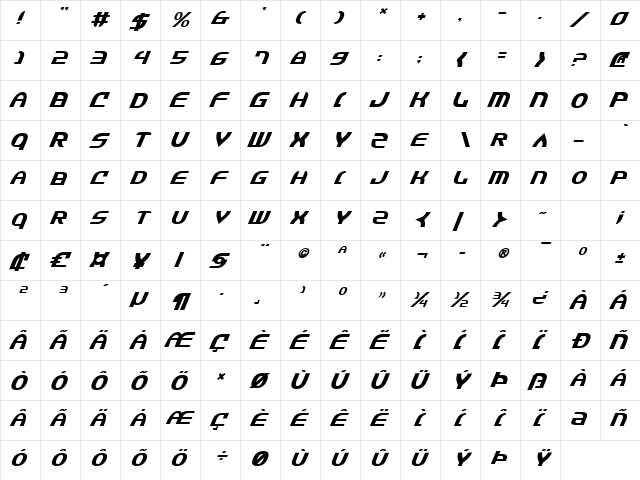
Jannisary Sword Italic Italic
Design Context for Jannisary Sword Italic Typeface
Jannisary Sword Italic is a composed and adaptable typeface that performs quietly and consistently across a wide range of design contexts. The slanted form adds forward momentum and visual energy.
Pro Tip: Try Jannisary Sword Italic for annotation and caption copy alongside an upright companion — the contrast in angle creates a dynamic but ordered typographic system.